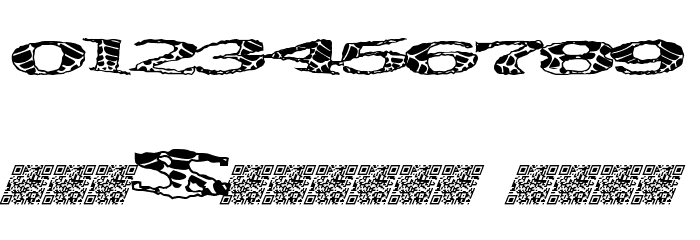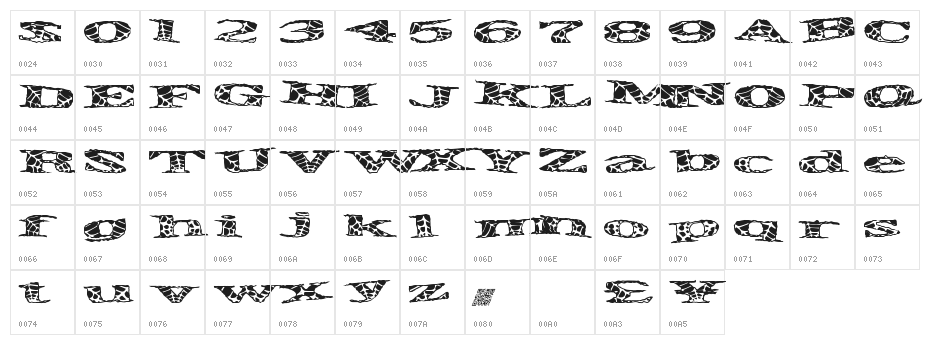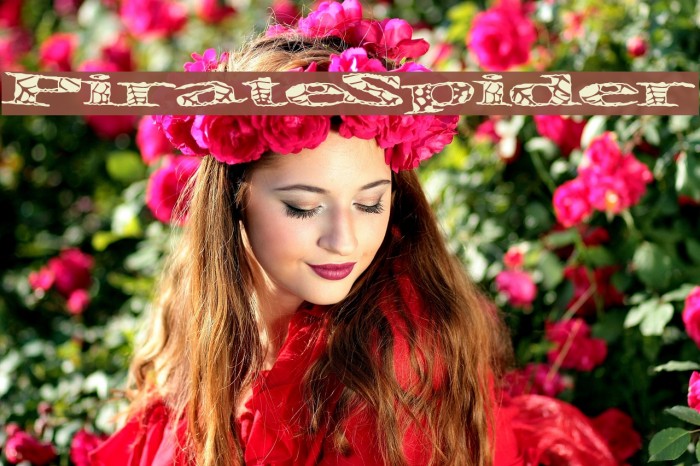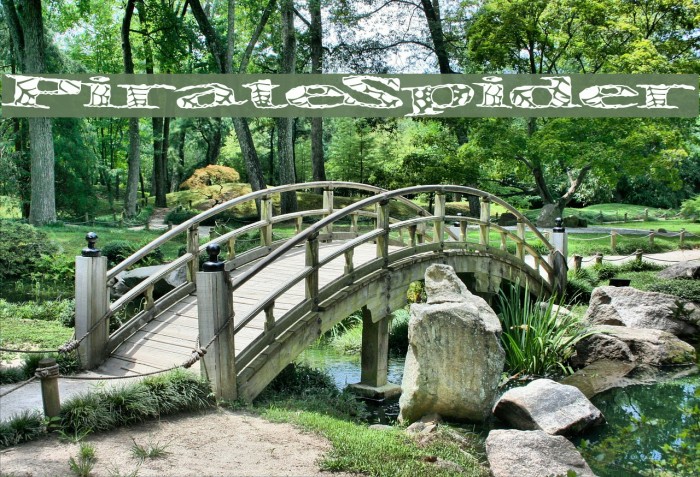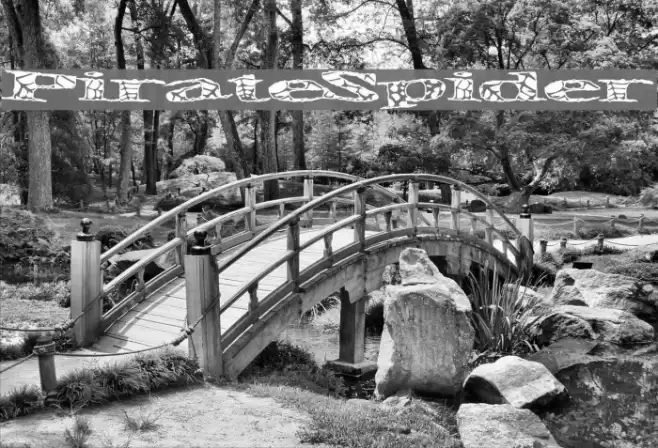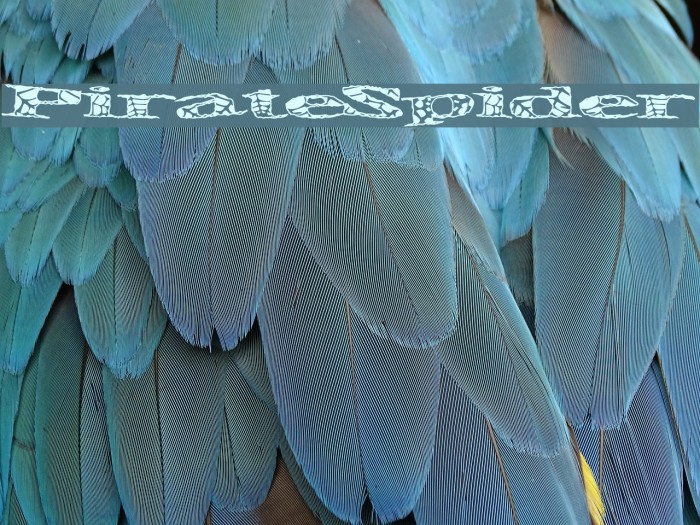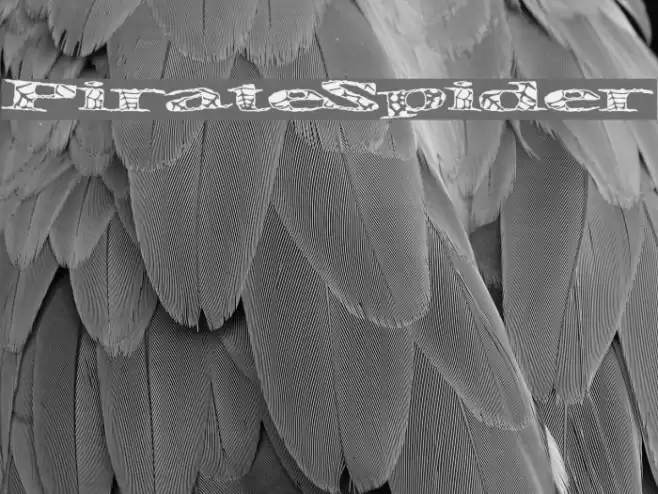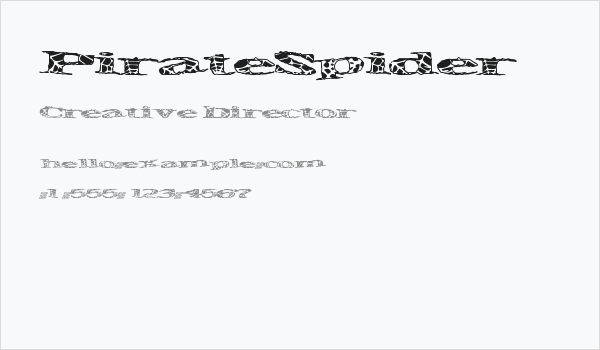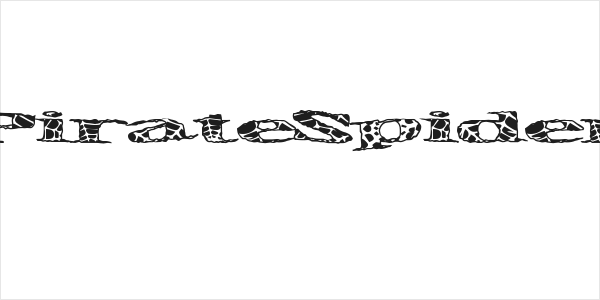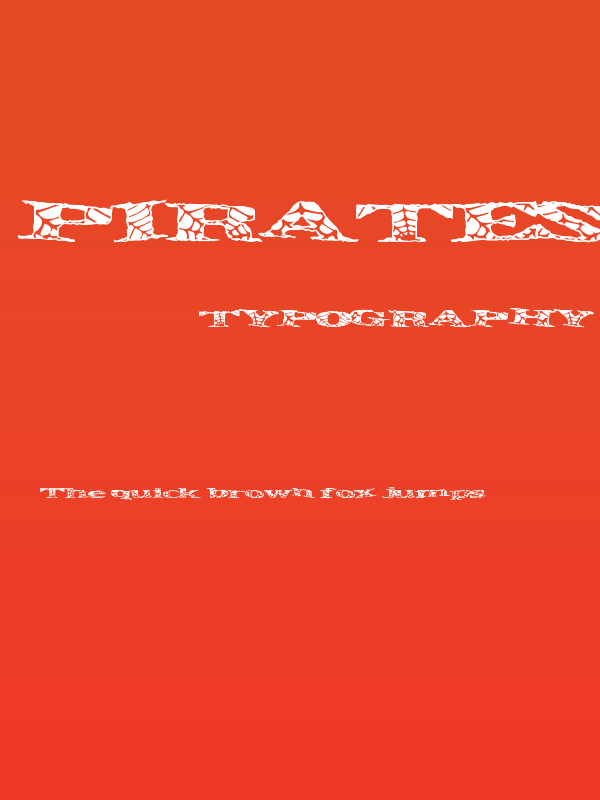
PirateSpider Font
PirateSpider Description
This font features a unique, decorative style with a pirate-themed aesthetic. The characters are filled with intricate patterns resembling spider webs, giving it a textured and adventurous look. The uppercase and lowercase letters maintain a consistent design, with bold, angular shapes that convey a sense of mystery and excitement. The numbers and special characters follow the same thematic style, making the font cohesive and visually striking. This font is perfect for projects that require a bold, thematic presence, such as pirate-themed events, Halloween decorations, or adventure-themed branding.
| Use Case | Headlines, Logos, Themed Invitations |
| Proposed Projects | Ideal for pirate-themed events, Halloween decorations, adventure branding, or themed party invitations. |